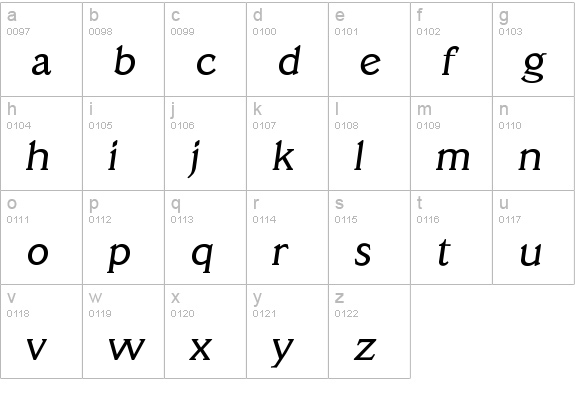
Veracruz-RegularIta is a stunning font that exudes elegance and sophistication. Its sleek and modern design makes it perfect for a variety of projects, from branding to advertising and everything in between. The delicate and refined letterforms of Veracruz-RegularIta add a touch of class to any text, making it a must-have for designers and creatives. What sets Veracruz-RegularIta apart is not just its impeccable design, but also the fact that it is available for free. Yes, you read that right - this font can be downloaded for free at FontsMarket.com. This means that you can access and utilize this beautiful font without any cost, making it an excellent option for those on a budget or simply looking to add some flair to their projects without breaking the bank. With Veracruz-RegularIta, you have the freedom to express your creativity without any limitations. Whether you're designing a logo, creating a website, or working on a print project, this font will elevate your work to new heights. Its versatility allows it to be used in both formal and informal settings, making it suitable for a wide range of applications. So why wait? Download Veracruz-RegularIta from FontsMarket.com today and unlock a world of possibilities. Whether you're a professional designer or just starting out, this font will undoubtedly become an invaluable tool in your creative arsenal. Don't miss out on this opportunity to enhance your designs with this stunning and freely available font.